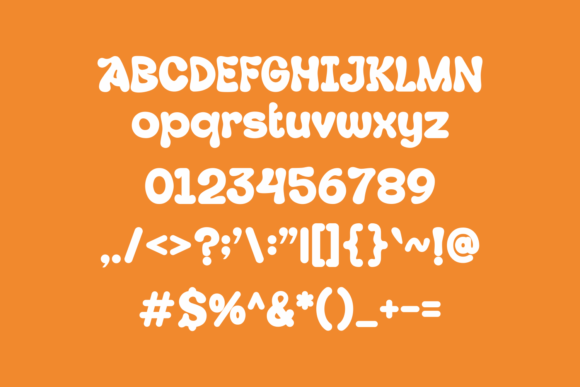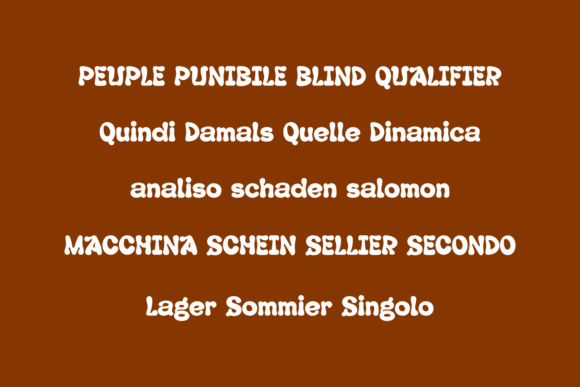
Introducing Asuking Font: The Fun and Wavy Sans Display Font to Elevate Your Designs
Are you tired of using the same old fonts in your designs? Do you want to add a touch of whimsy and quirkiness to your projects? Look no further than Asuking Font, a fun and wavy sans display font that’s sure to brighten up each of your designs. In this article, we’ll take a closer look at Asuking Font, its features, and how you can use it to take your designs to the next level.
What is Asuking Font?
Asuking Font is a sans display font that’s designed to add a playful and carefree touch to your designs. With its wavy and irregular shapes, this font is perfect for designers and crafters who want to create unique and eye-catching projects. Asuking Font is a digital font that can be used on a variety of platforms, including Adobe Creative Cloud, Canva, and other design software.
Features of Asuking Font
So, what makes Asuking Font so special? Here are some of its key features:
- Fun and wavy design: Asuking Font has a unique and playful design that’s sure to grab attention. Its wavy shapes give it a carefree and whimsical feel that’s perfect for designs that need a bit of personality.
- Sans display font: Asuking Font is a sans display font, which means it’s designed to be used at larger sizes. It’s perfect for headlines, titles, and other display text.
- Quirky and irregular shapes: Asuking Font has quirky and irregular shapes that give it a unique and handmade feel. This font is perfect for designers who want to add a touch of personality to their designs.
- Easy to read: Despite its playful design, Asuking Font is still easy to read, even at smaller sizes. This makes it perfect for designs that need a bit of whimsy but still require clear communication.
How to Use Asuking Font in Your Designs
Now that we’ve covered the features of Asuking Font, let’s talk about how you can use it in your designs. Here are some ideas to get you started:
- Headlines and titles: Asuking Font is perfect for headlines and titles that need a bit of personality. Use it to add a touch of whimsy to your blog posts, articles, and other written content.
- Social media graphics: Asuking Font is a great choice for social media graphics, including Facebook posts, Twitter headers, and Instagram stories. Its playful design is sure to grab attention and add a bit of fun to your social media presence.
- Branding and logos: If you’re looking for a font that’s a bit unconventional, Asuking Font could be the perfect choice for your branding and logo designs. Its quirky shapes and wavy lines give it a unique and memorable feel.
- Crafting and DIY projects: Asuking Font is also perfect for crafters and DIY enthusiasts who want to add a personal touch to their projects. Use it to create handmade cards, gift tags, and other paper crafts.
Tips for Using Asuking Font Effectively
Here are some tips for using Asuking Font effectively in your designs:
- Use it sparingly: Asuking Font is a bold and playful font, so it’s best to use it sparingly. Use it for headlines and titles, but stick to a more traditional font for body text.
- Experiment with colors: Asuking Font looks great in a variety of colors, so don’t be afraid to experiment. Try using it in bright and bold colors to add a bit of whimsy to your designs.
- Pair it with other fonts: Asuking Font pairs well with other fonts, including serif and sans serif fonts. Try pairing it with a more traditional font to create a unique and interesting contrast.
Asuking Font is a fun and wavy sans display font that’s perfect for designers and crafters who want to add a touch of whimsy to their projects. With its quirky shapes and wavy lines, this font is sure to brighten up each of your designs. Whether you’re creating headlines and titles, social media graphics, or branding and logos, Asuking Font is a great choice. So why not give it a try and see how it can elevate your designs?